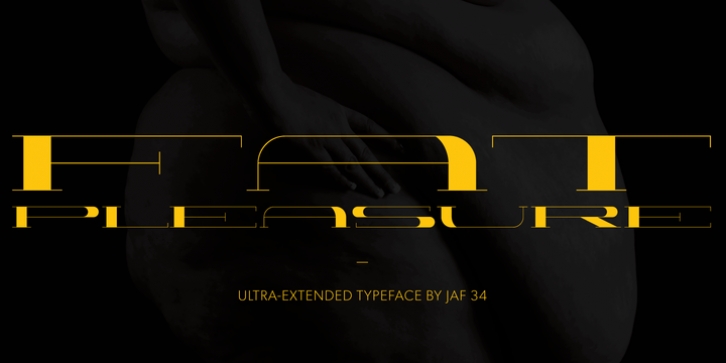
Fat Pleasure was designed by JAF 34 and published by JAF 34. Fat Pleasure contains 1 style.
Fat Pleasure is extremely wide serif typeface inspired by the modern consume society and is suitable for posters, magazines, massive headlines (also for a web presentation) and so on. For dynamic of ultra hairy and massive fat strokes is not suitable for comprehensive text. Fat Pleasure is also inspired and constructed in the sense of modern type design. Even though Fat Pleasure is pure and clean serif font is very catchy a fresh.